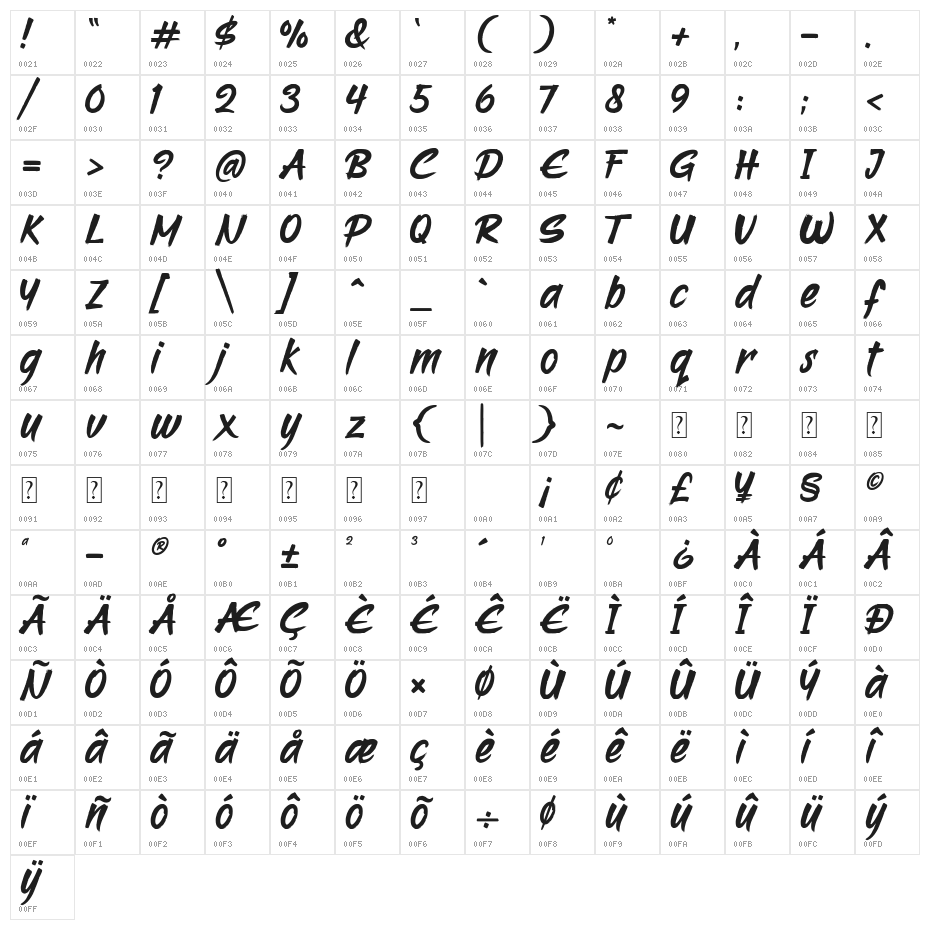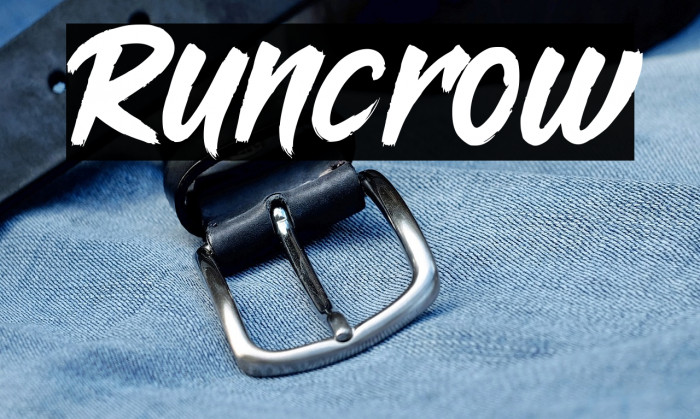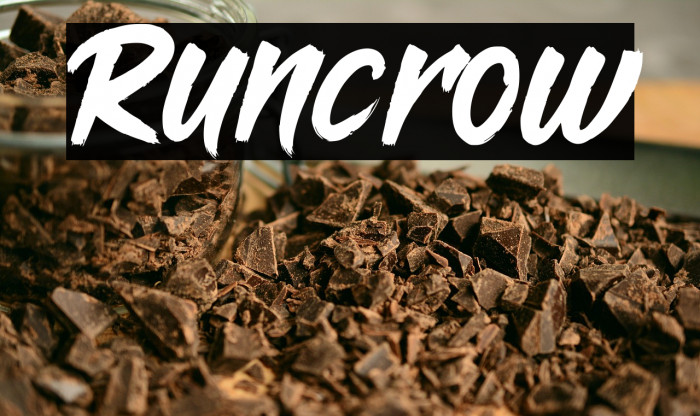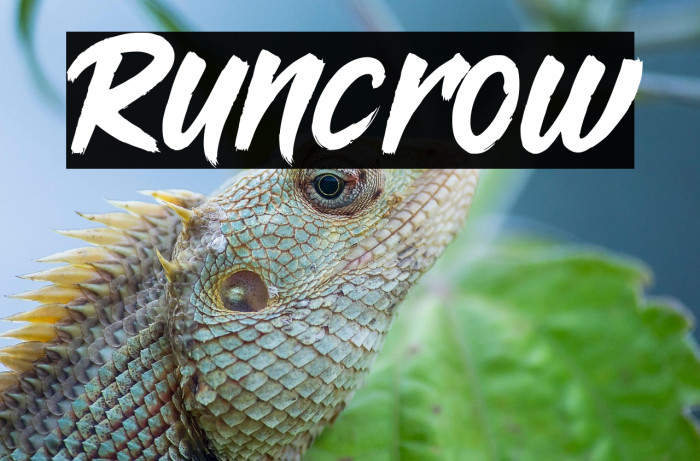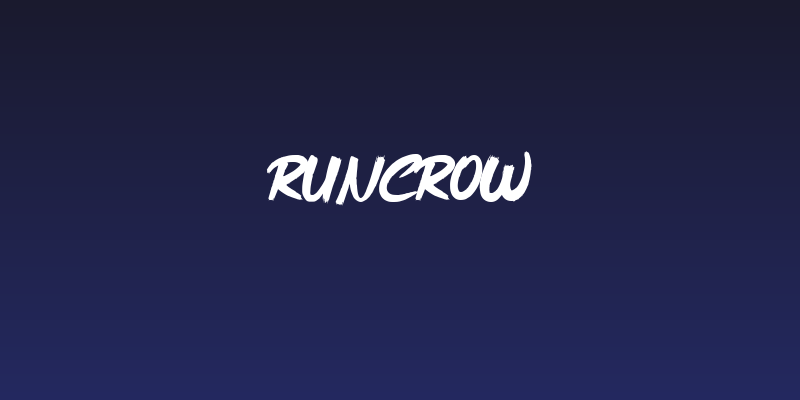
Runcrow Font
This font features a bold and dynamic brush script style, characterized by its energetic and fluid strokes. The letters are slightly slanted, giving a sense of motion and spontaneity. The uppercase and lowercase letters maintain a consistent style, with the uppercase being slightly more pronounced. The numbers and special characters follow the same energetic design, making them cohesive with the alphabet. The overall appearance is both artistic and modern, suitable for projects that require a personal touch or a sense of creativity.
| Proposed Projects | Ideal for branding, posters, invitations, and any creative projects that require a personal and artistic touch. |